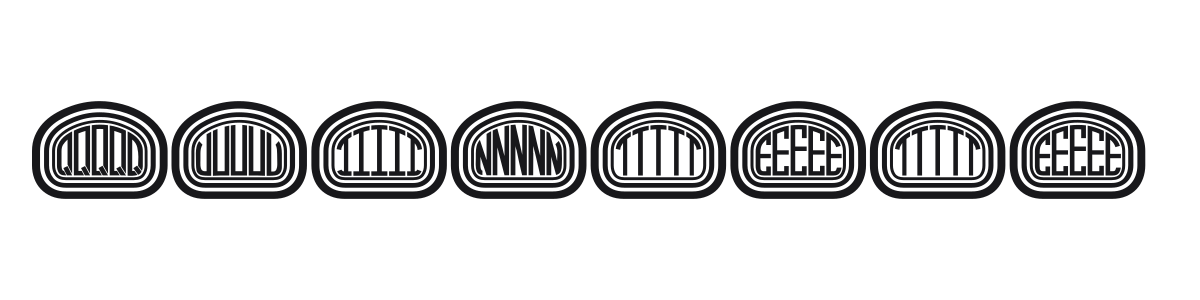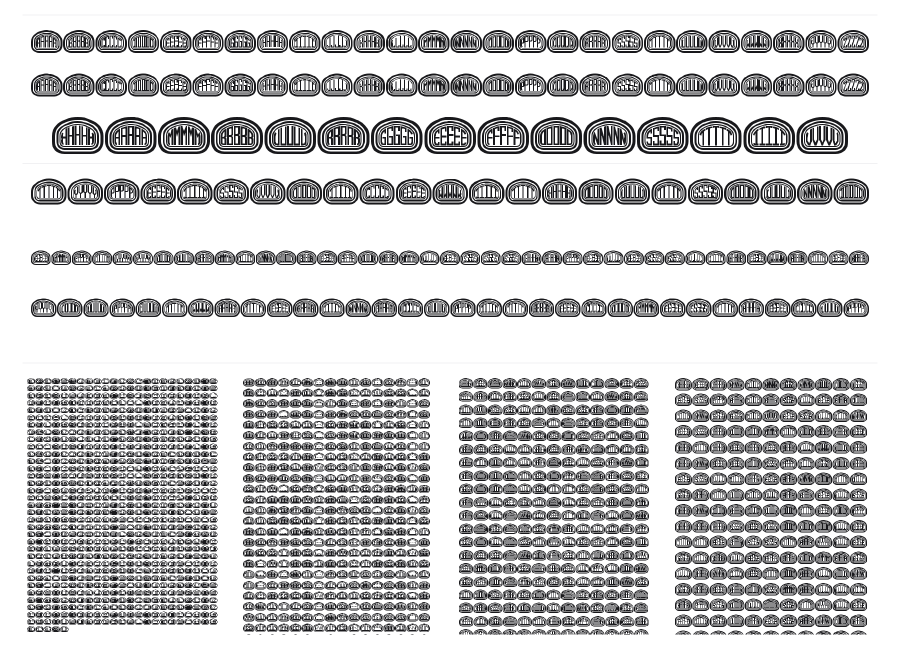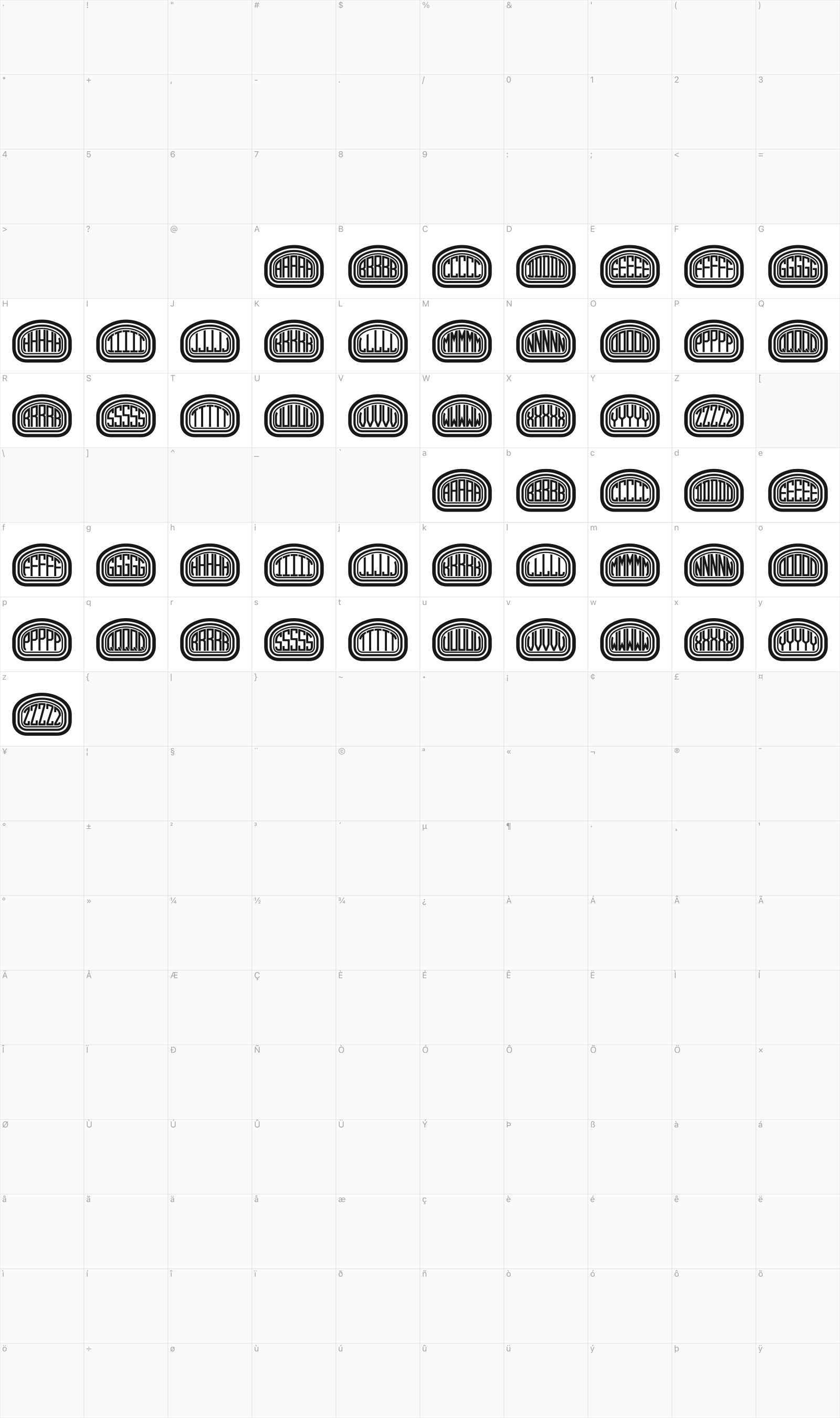
Quintete
Quintete is a monogram dingbat font by Vladimir Nikolic where every character is rendered as a decorative badge enclosing repeated letter motifs in tight horizontal rows. The rounded arch frames and layered concentric outlines give each glyph an Art Deco engraving quality. A quick way to add ornamental monogram badges to invitations, packaging, or identity work.